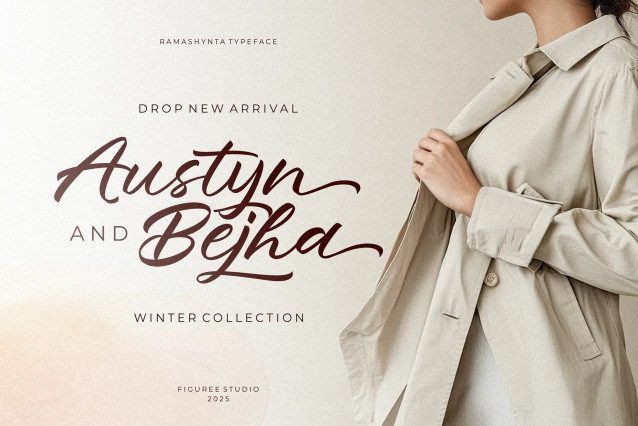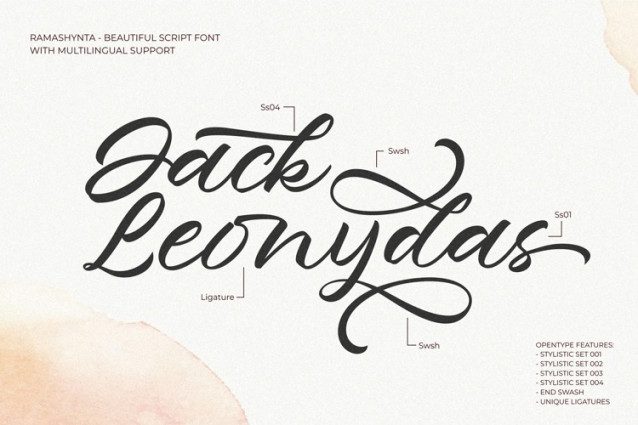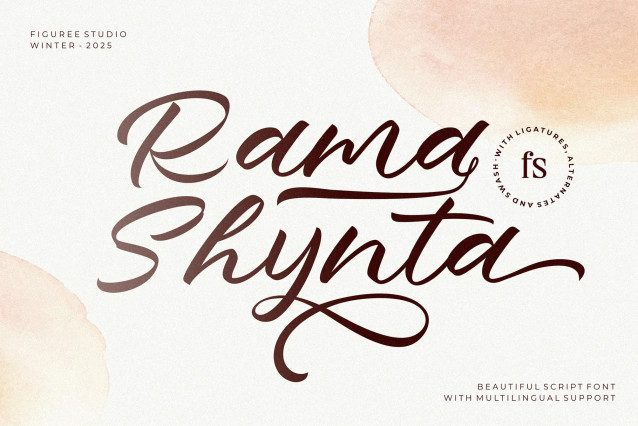
Ramashynta Script Font
Ramashynta Script Font was crafted to capture elegance and romance in every curve. With flowing ligatures, graceful alternates, and smooth swashes, this beautiful script font transforms your text into art.
Perfect for wedding invitations, branding, logos, or social media designs, Ramashynta adds a timeless charm that feels both modern and classic. If you’re looking for a beautiful script font that brings sophistication and personality to your work, Ramashynta is exactly that.